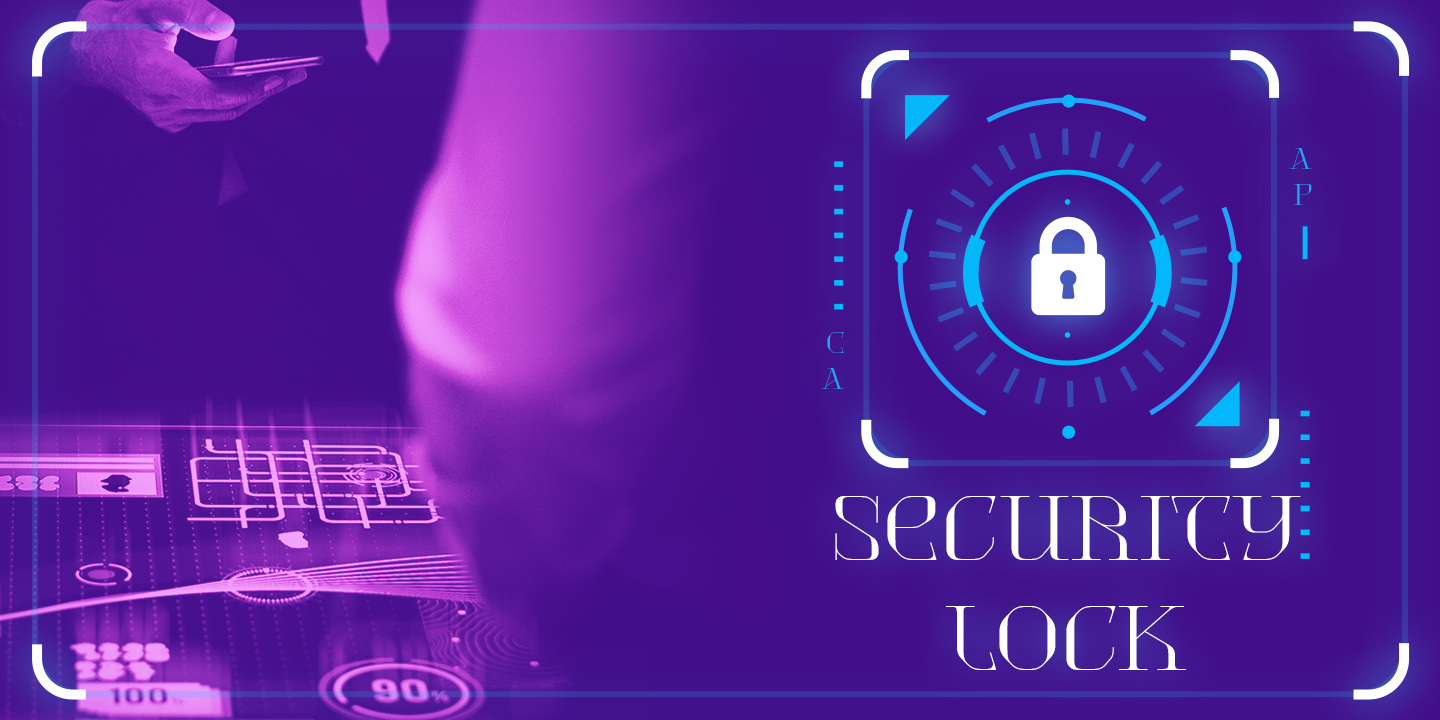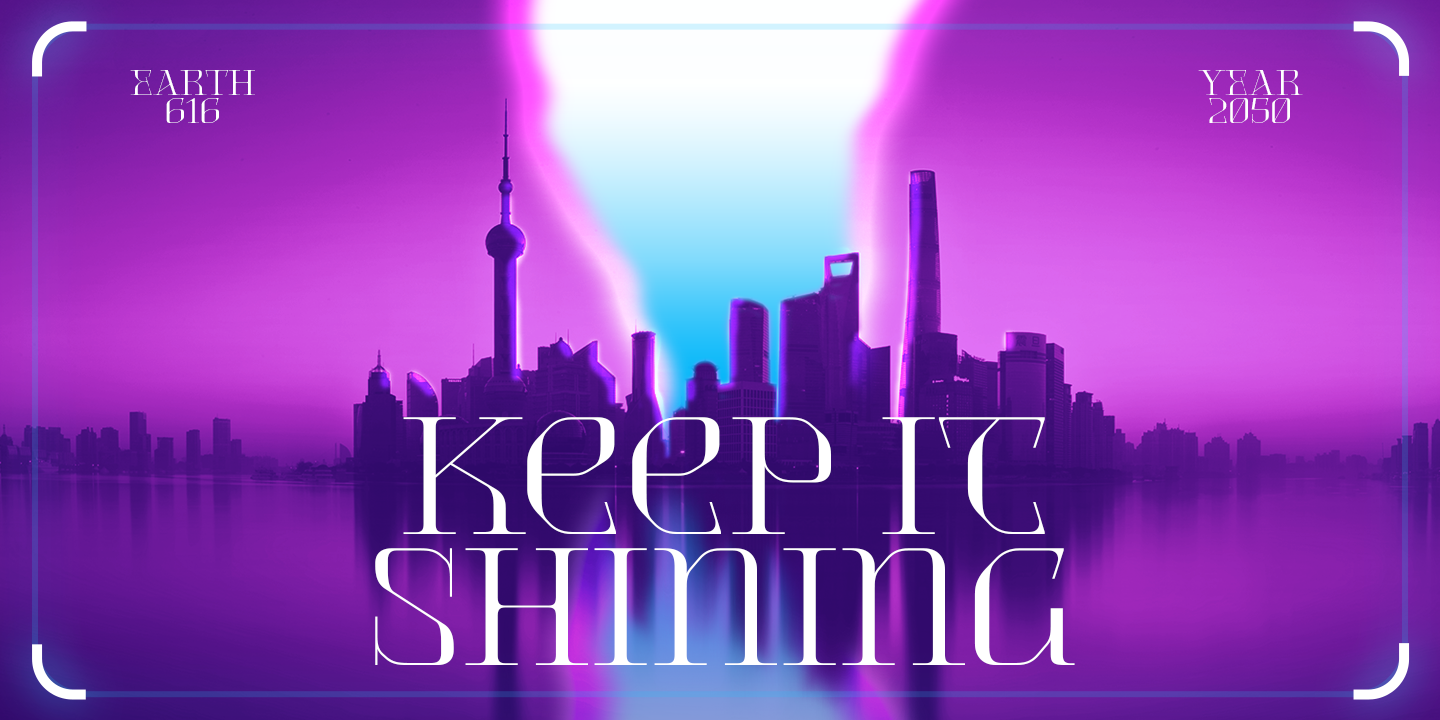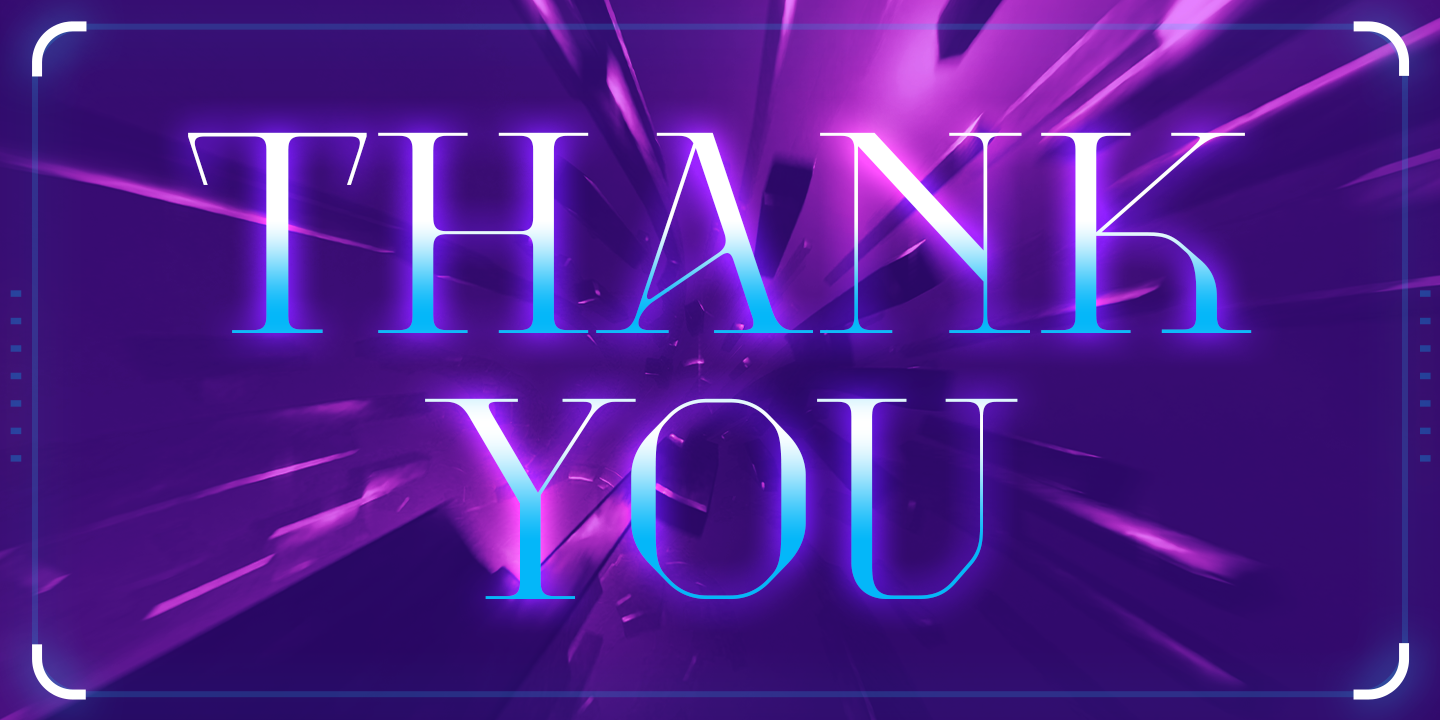
Quicknity is an angular serif font with future nuances, and consistent angles throughout each letter, uppercase and lowercase have the same size, so you can exchange between them in any design. Quicknity is perfect for large text, like headlines or designs with short text.